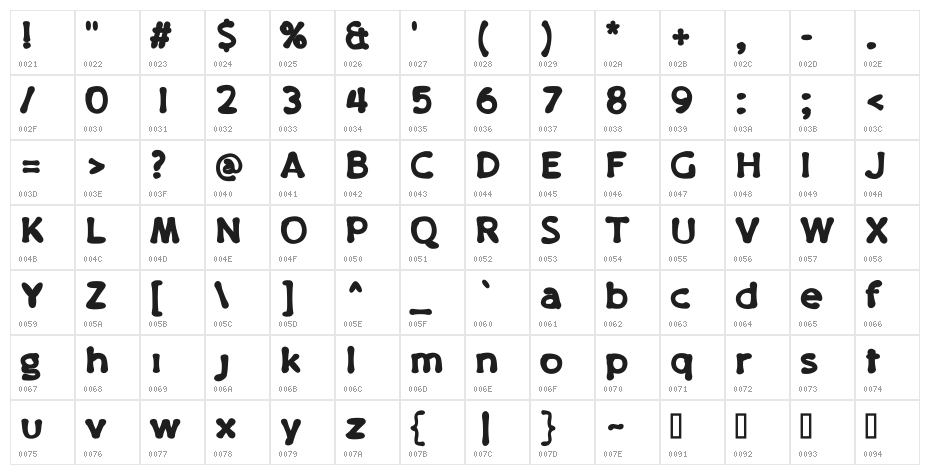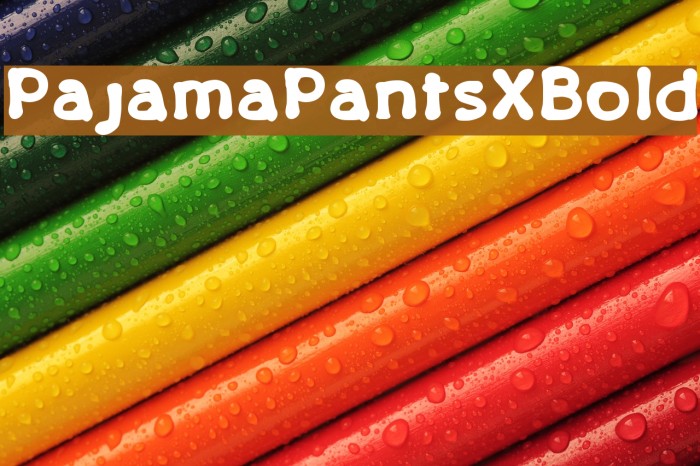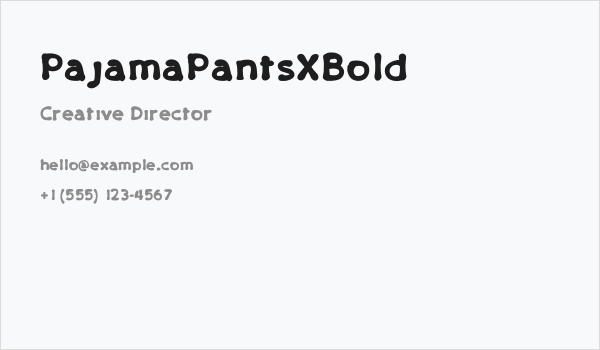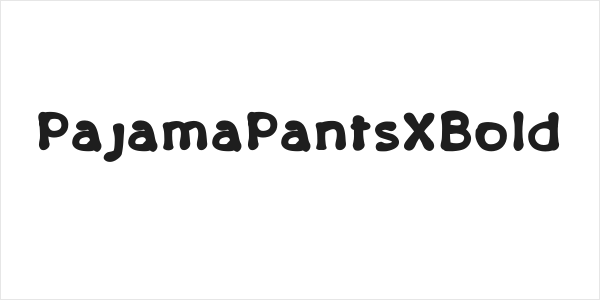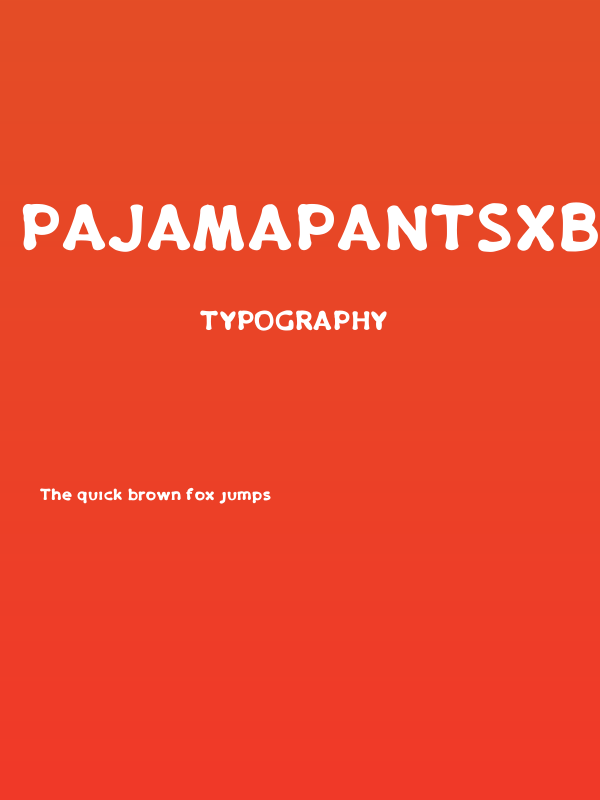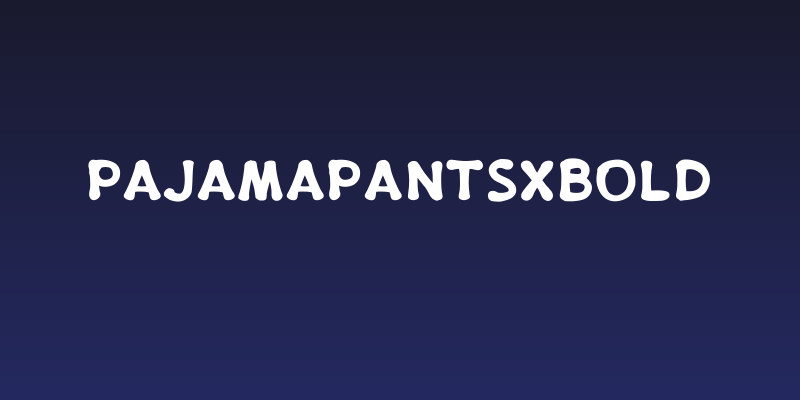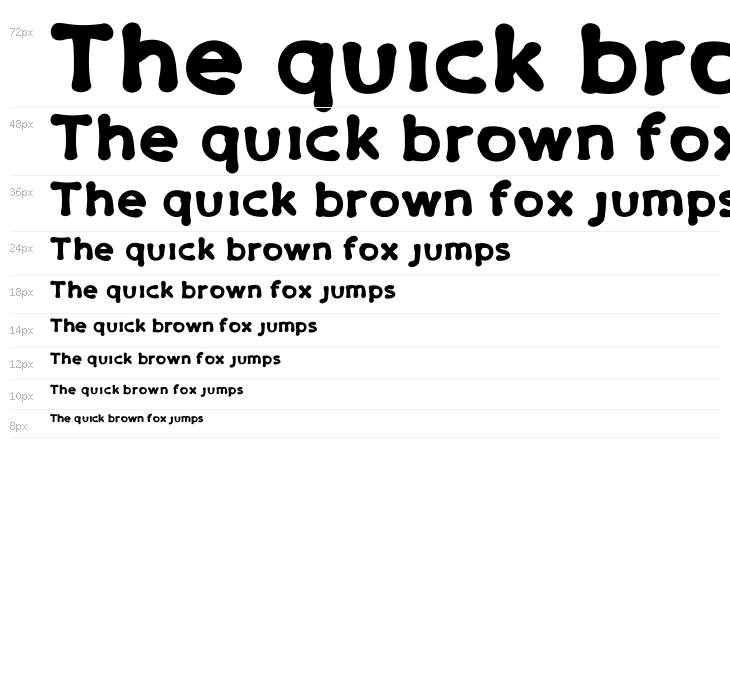
PajamaPantsXBold Font
PajamaPantsXBold Description
This playful and bold font features rounded, thick strokes that give it a friendly and approachable appearance. The characters are slightly irregular, adding a whimsical touch, while maintaining readability. The uppercase and lowercase letters are well-proportioned, and the numerals are clear and distinct. Special characters are included, enhancing its versatility. The overall design is reminiscent of hand-drawn lettering, making it suitable for informal and creative projects.
| Proposed Projects | Ideal for children's books, playful branding, casual invitations, and creative posters. |